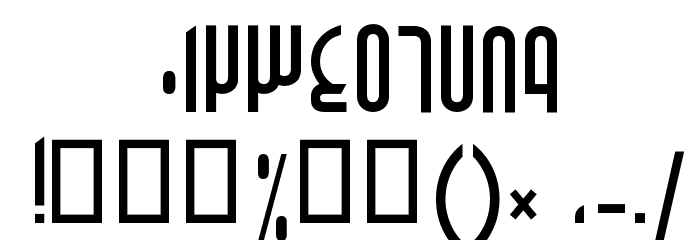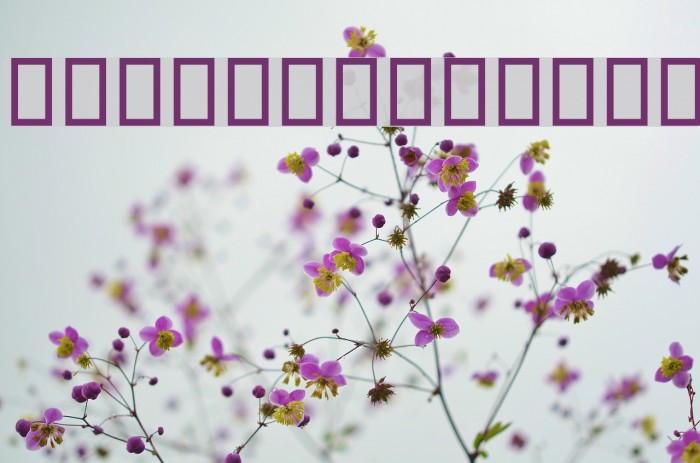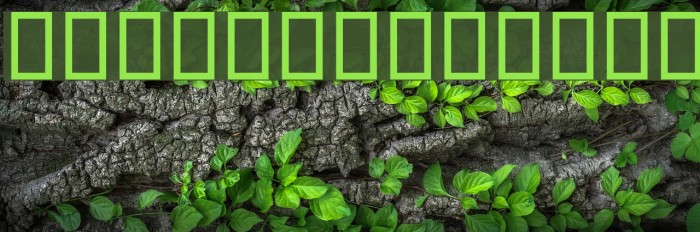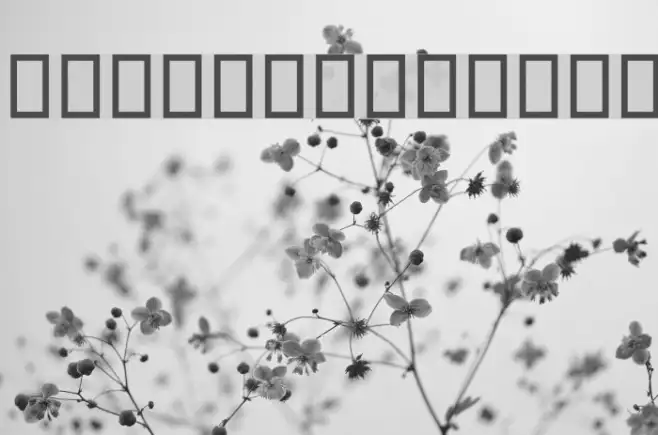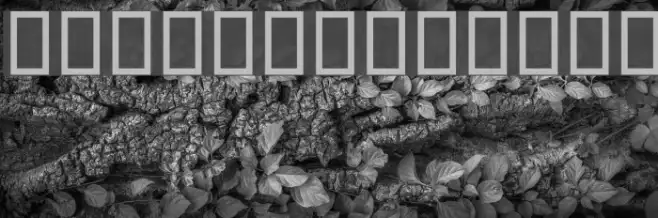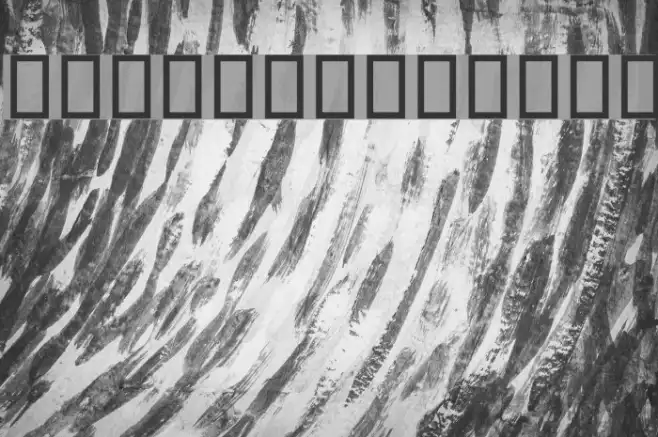
Mozhgaan Font
This font features a futuristic and geometric design, characterized by its bold and angular letterforms. The characters are constructed with sharp edges and a consistent stroke width, giving it a modern and digital appearance. The numerals and special characters maintain the same angular style, ensuring uniformity across the typeface. Its unique style makes it stand out, ideal for projects that require a contemporary and tech-forward aesthetic. The font's design is both eye-catching and functional, suitable for a variety of creative applications.
A futuristic, geometric font with bold, angular letterforms.
- Proposed Projects: Ideal for technology branding, sci-fi posters, video game titles, and digital interfaces.